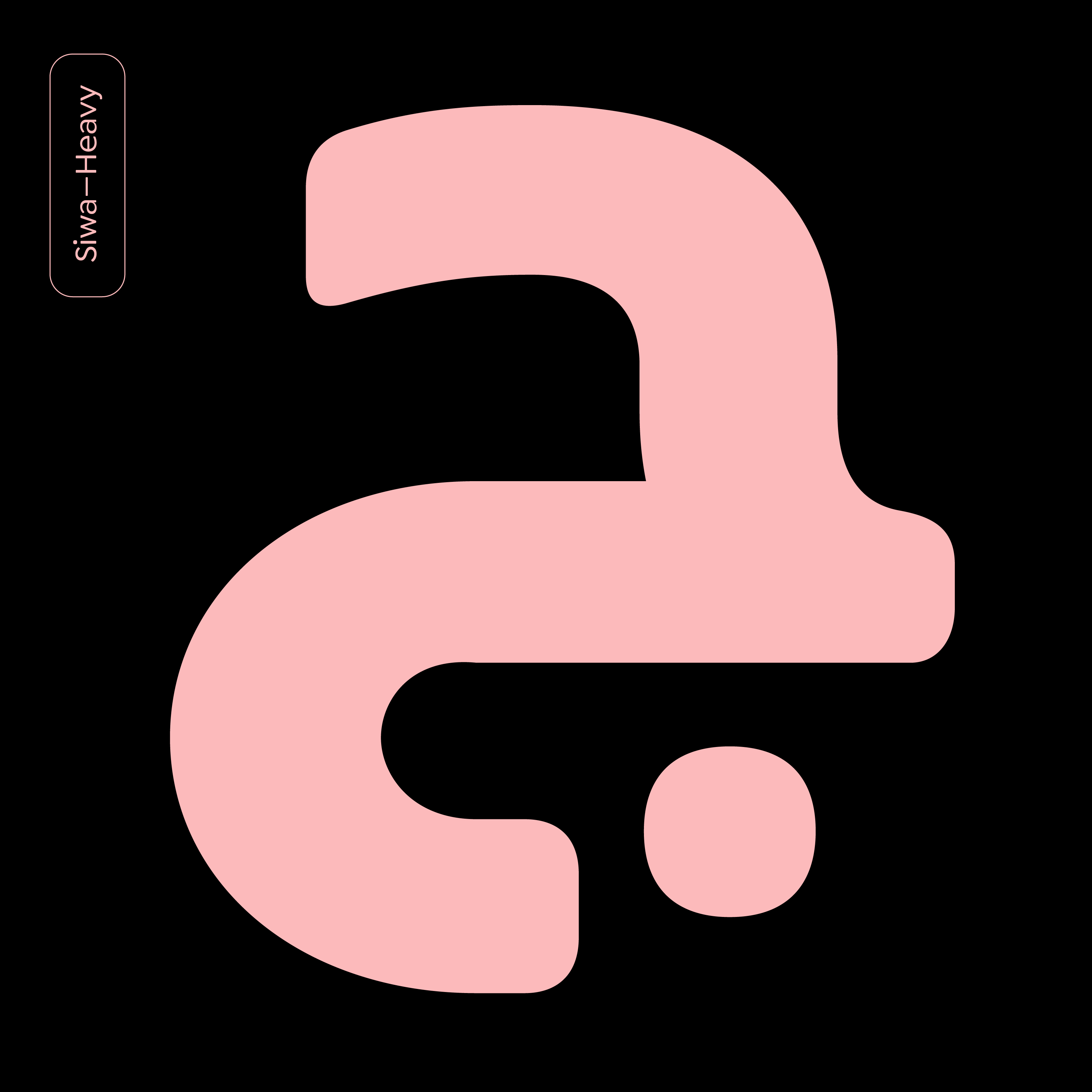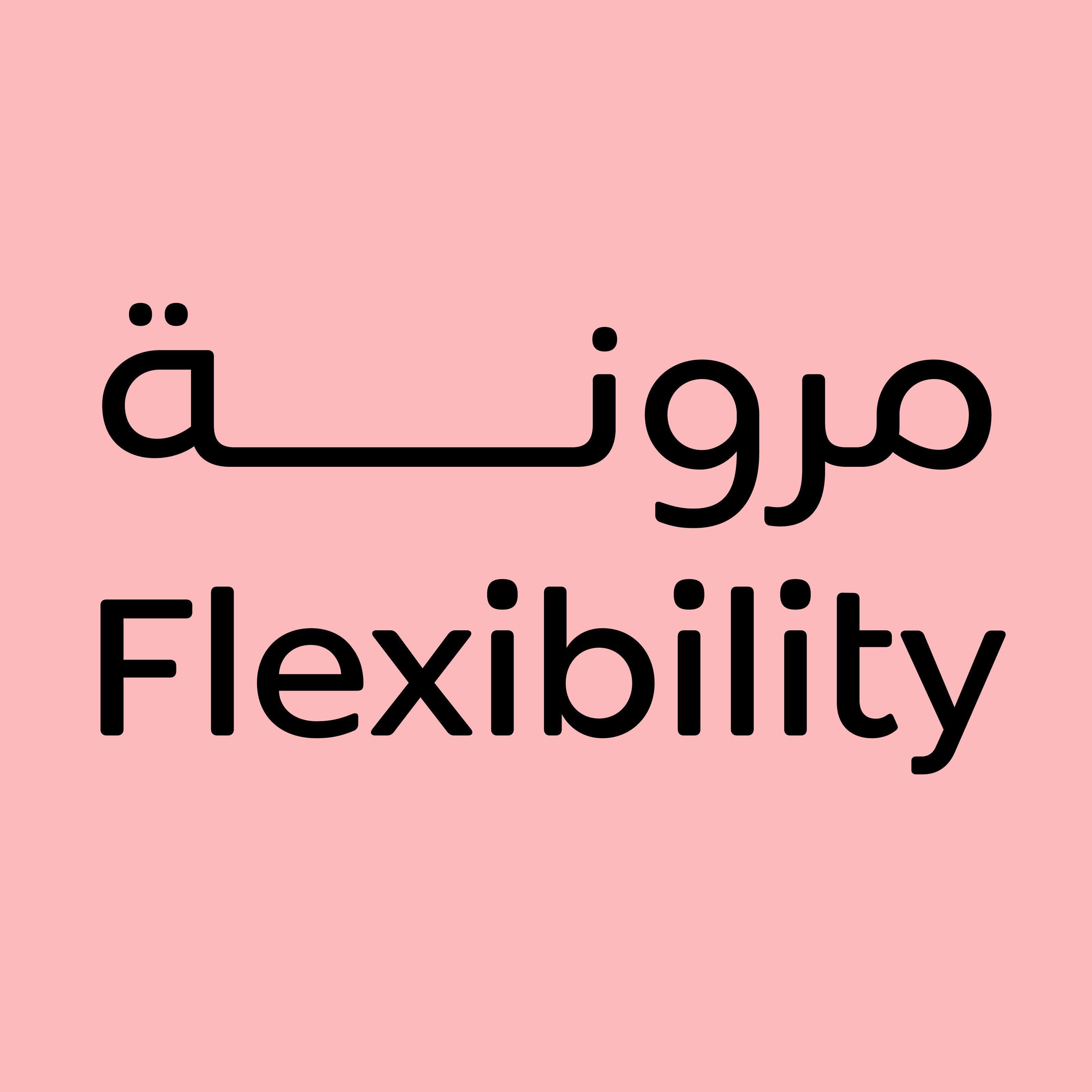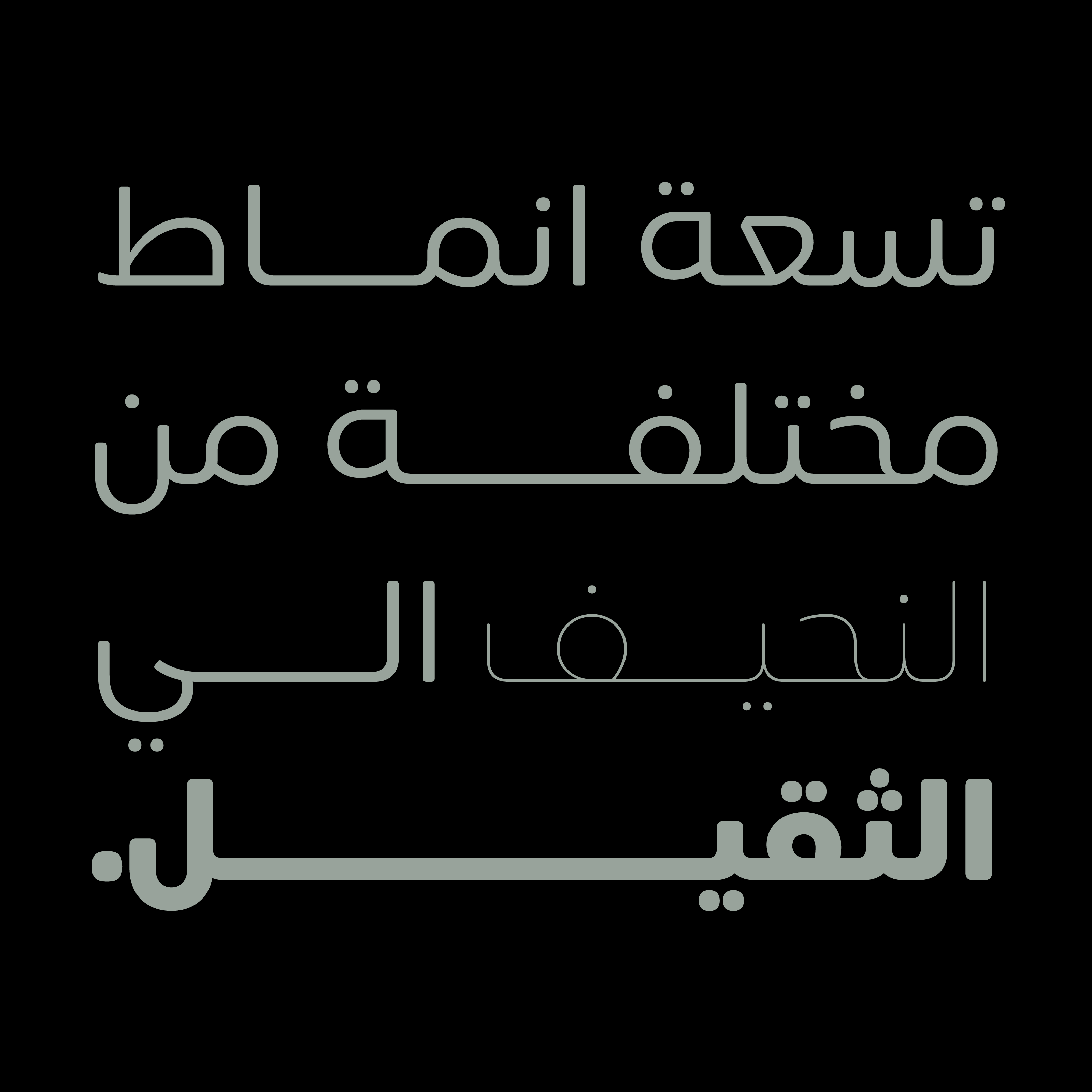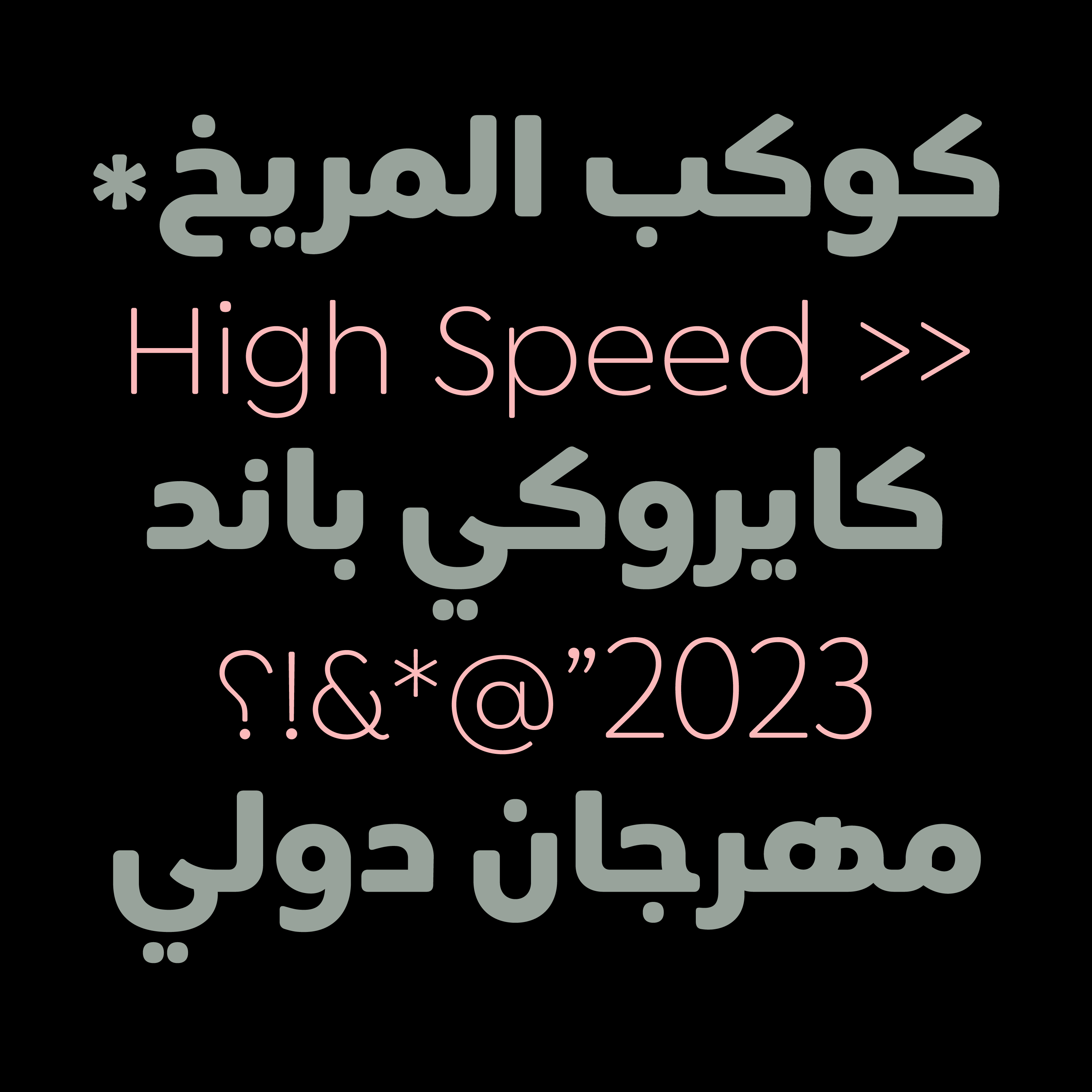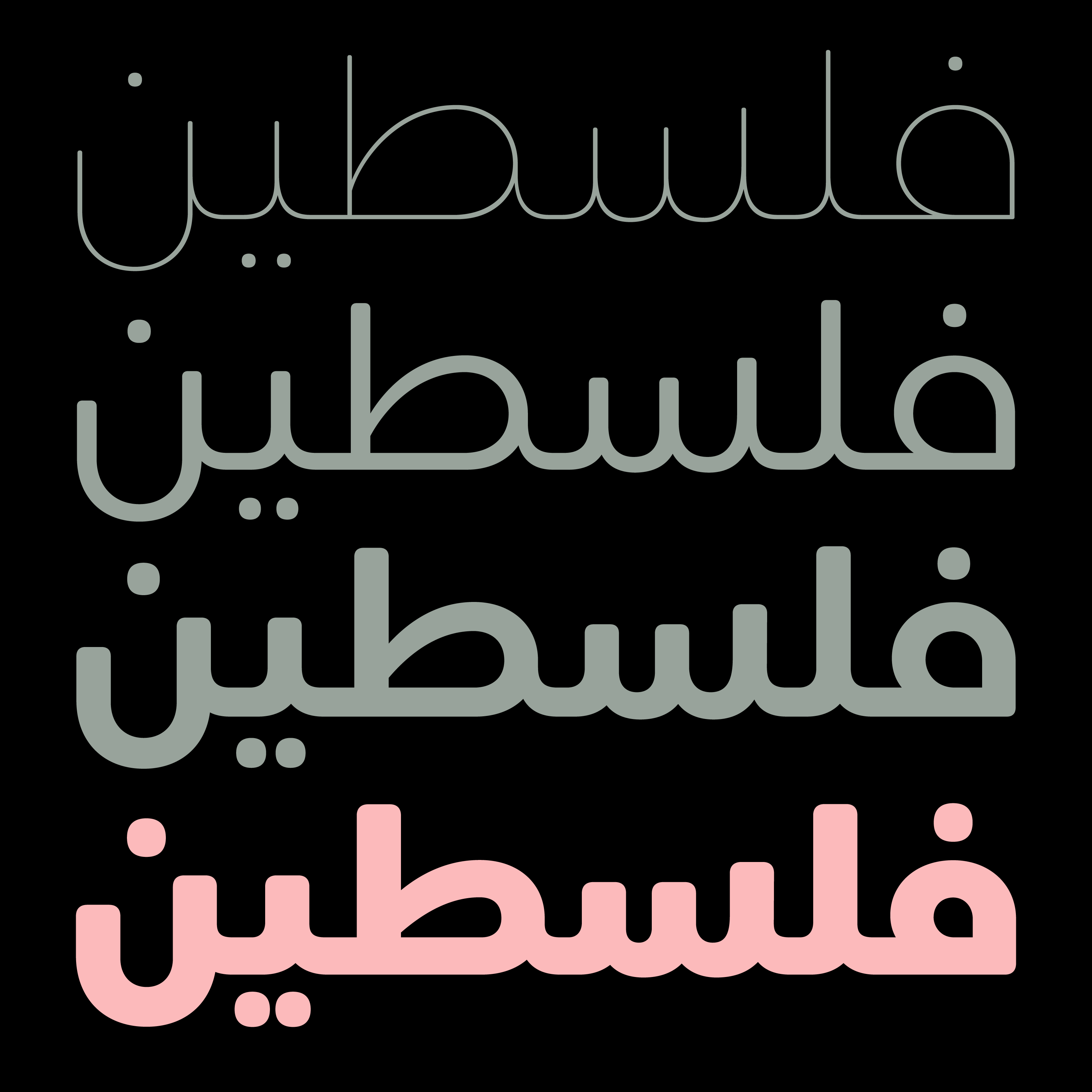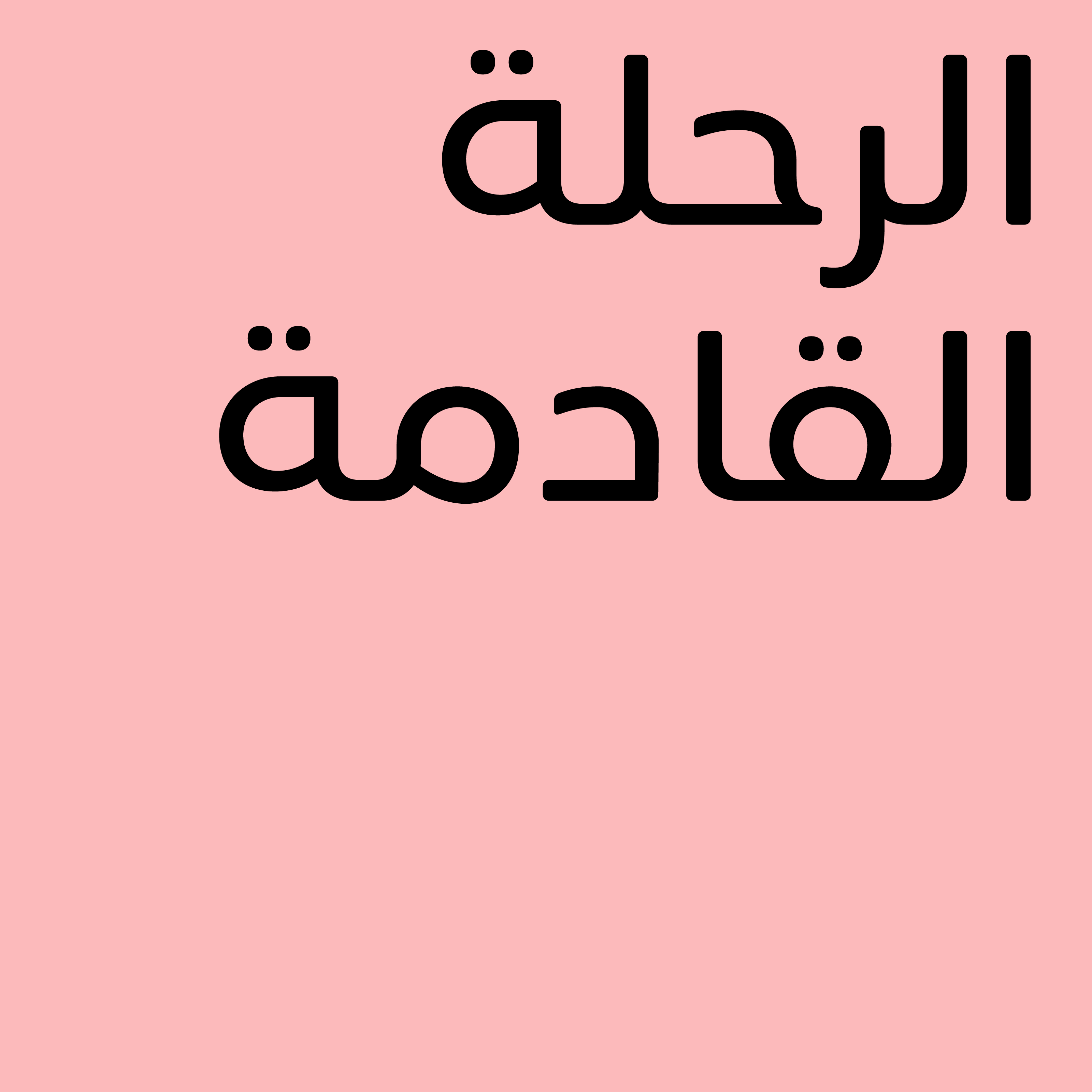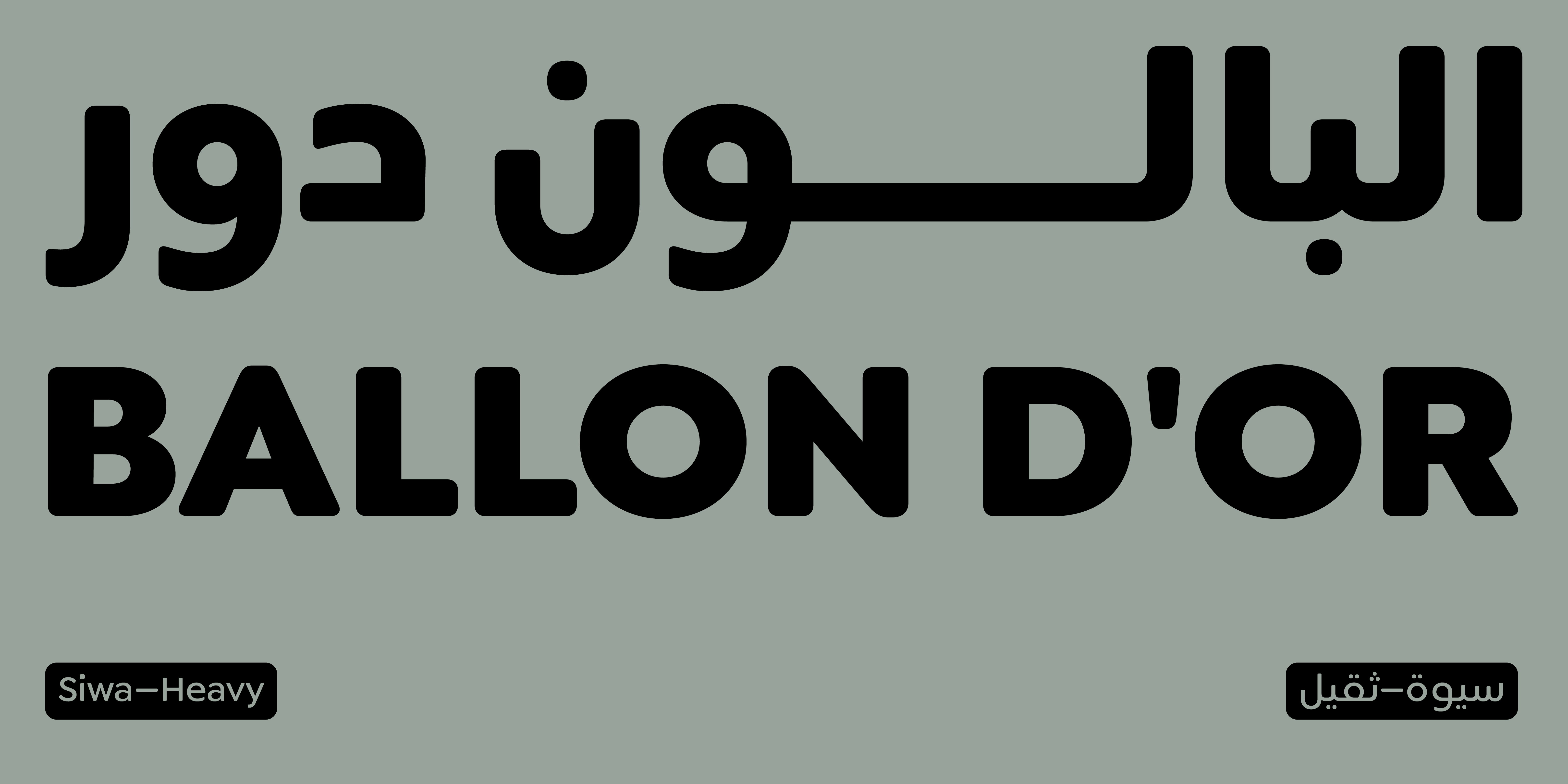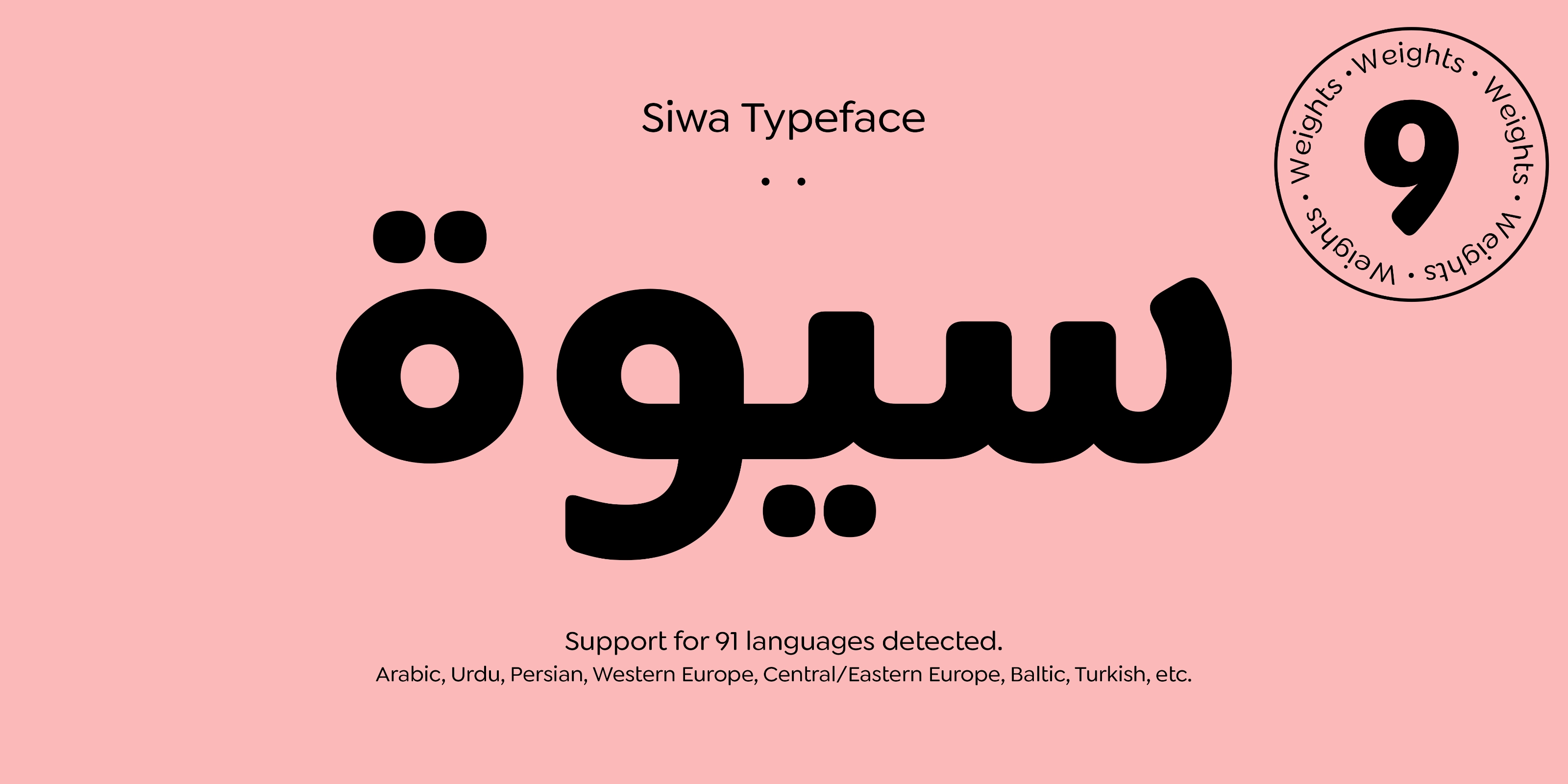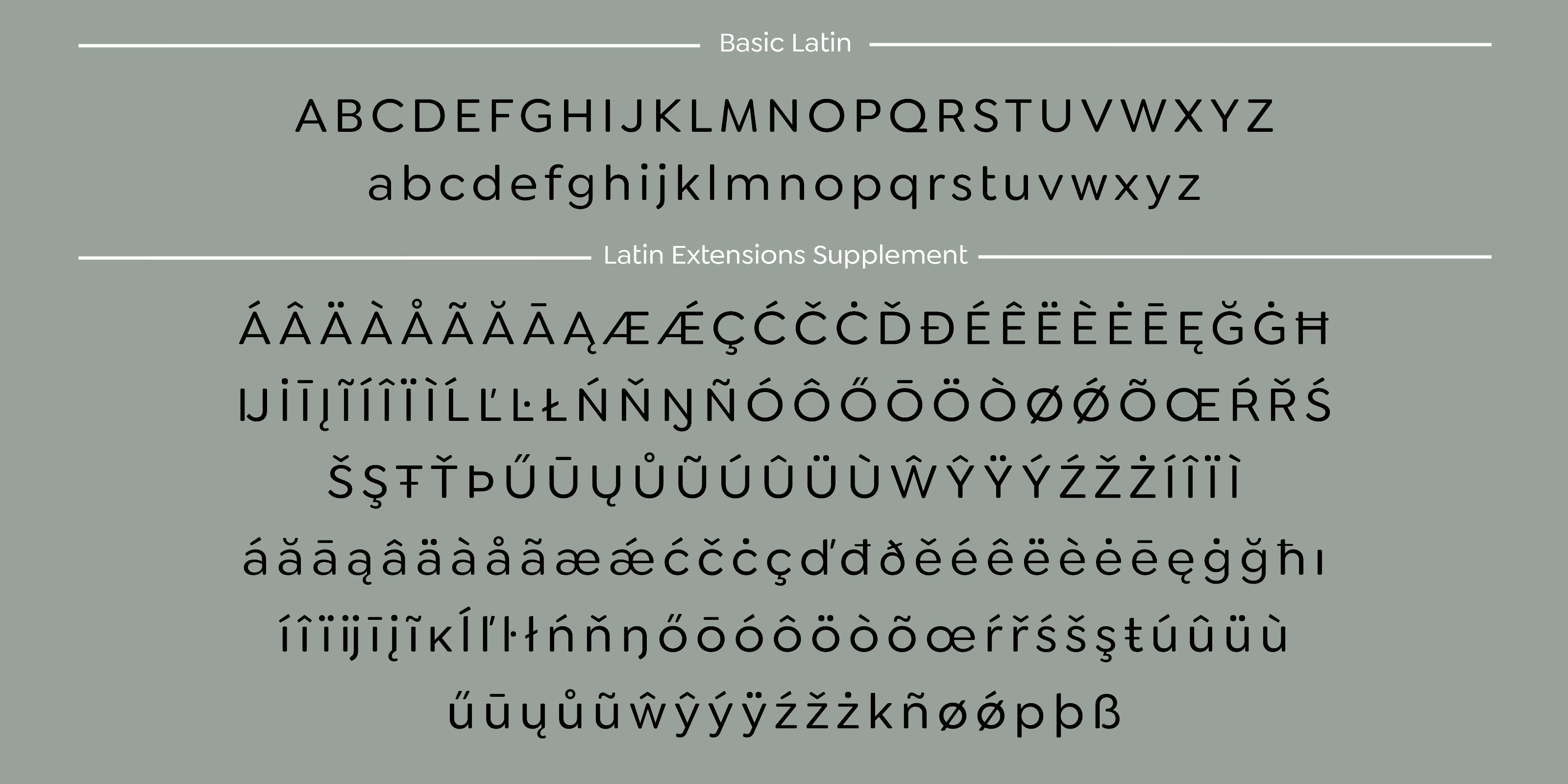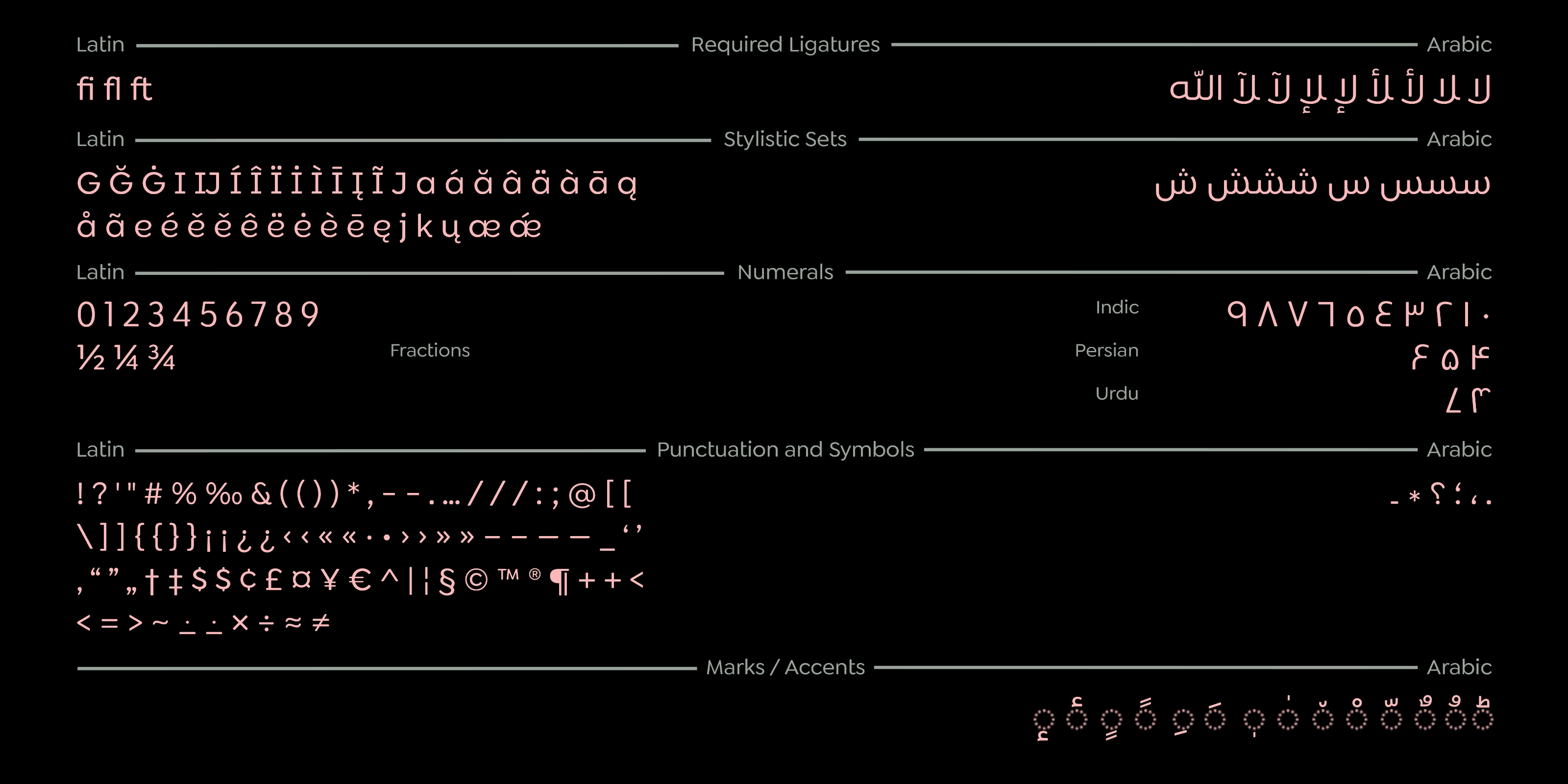
Authentic Arabic Type, Refined for Modern Design.
Siwa is a Multilingual typeface that created for the screens and the design of daily uses in general, A geometric treat, Siwa’s design draws inspiration from timeless traditional rules of calligraphy with a modern perspective.
Available in nine weights from thin to black, supports OpenType feature for more than 90 languages, including all Latin and Arabic based languages letters and supports the Hindi, Latin, Persian and Urdu numbers. Siwa will speak your language!
✦ Modern Kufic ✦ Display ✦ Round
Opentype Features
Contextual Alternates, Stylistic Alternates, Standard Ligatures, Subscript, Scientific Inferiors, Superscript, Numerator, Denominator, Fractions, Ordinals.
Supported Languages
Arabic, Persian, Urdu, Latin and more +90 languages.
Styles & Weights
9 Weights: Thin, Extra-Light, Light, Regular, Medium, Semi-Bold, Bold, Black, Heavy.
Designers
Ibrahim Hamdi, Abdo Mohamed